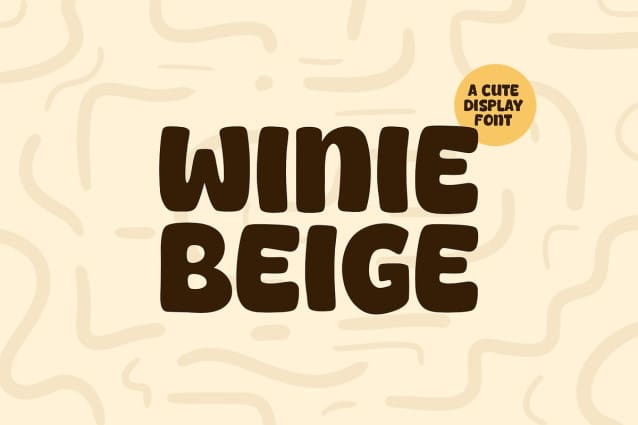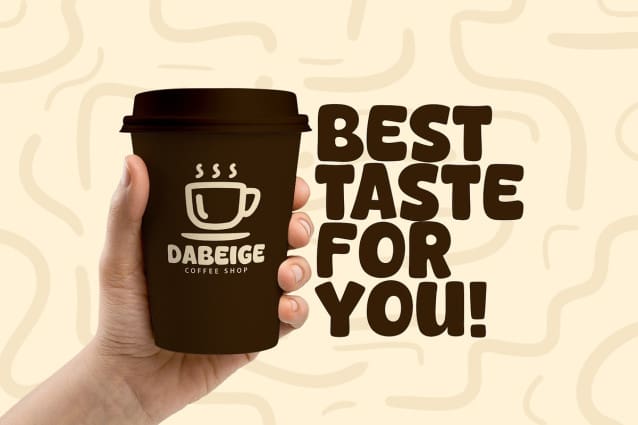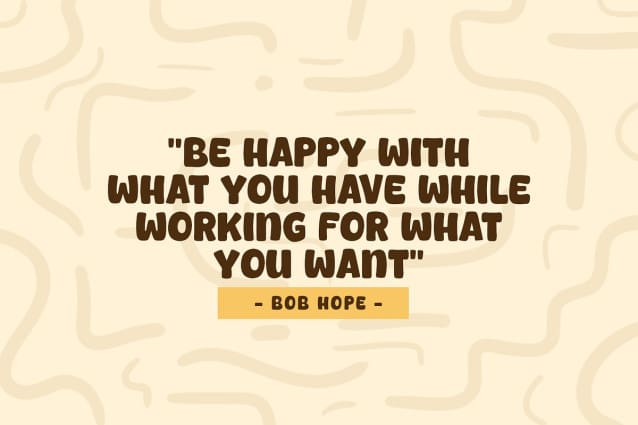
Winie Beige Font
Winie Beige font a fun display typeface with cheerful theme for your fun project. WinieBeige font suitable for logo, branding, greeting card, poster and any design that you create.